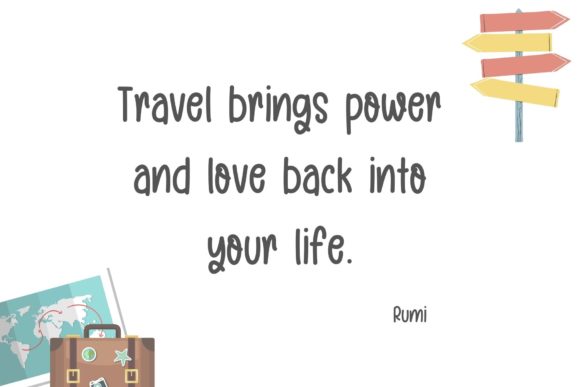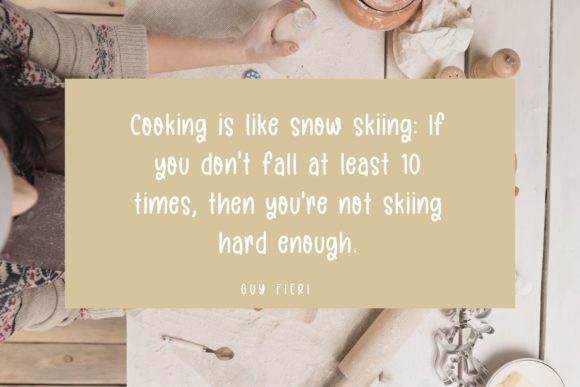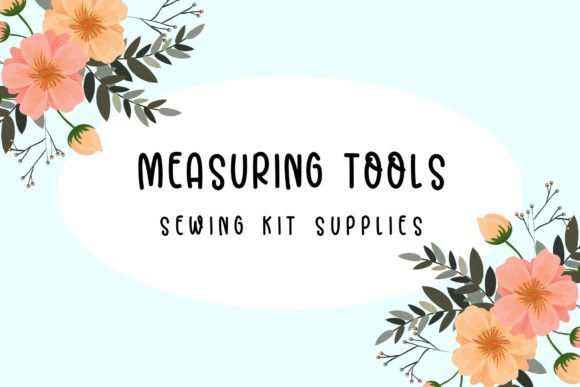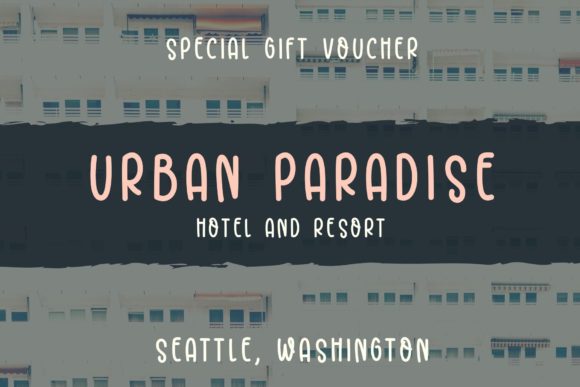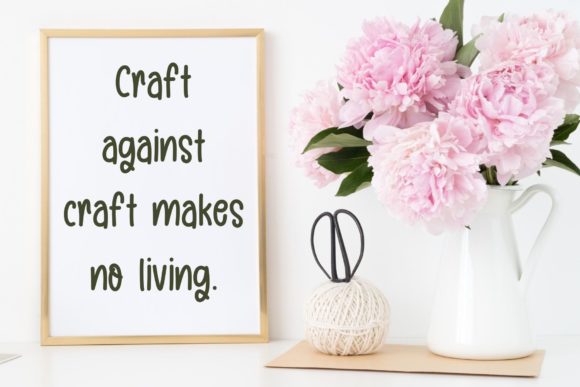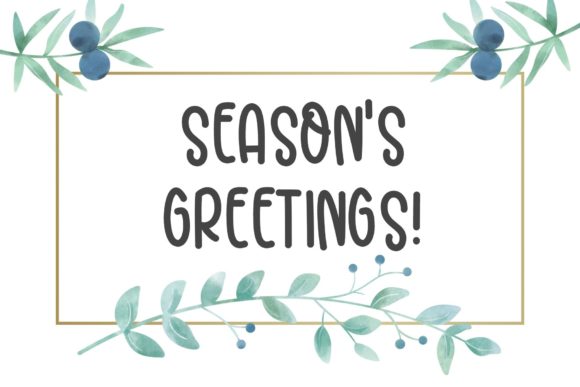
Introducing Amore Boutique Font: The Sweet and Cheerful Handwritten Font to Capture Your Heart
Are you a designer, crafter, or DIY enthusiast looking for a font that can add a touch of sweetness and cheerfulness to your projects? Look no further than Amore Boutique Font! This beautiful handwritten font is designed to capture your heart with its incredibly versatile style, making it perfect for a wide range of design applications.
The Charm of Amore Boutique Font
Amore Boutique Font is a sweet and cheerful handwritten font that exudes a sense of warmth and friendliness. Its unique and elegant style is perfect for creating designs that are both modern and timeless. Whether you’re working on a branding project, crafting a handmade product, or creating digital content, Amore Boutique Font is sure to make your designs stand out.
Key Features of Amore Boutique Font
- Incredibly Versatile: Amore Boutique Font is designed to be versatile, making it suitable for a wide range of design applications, from logos and branding to crafts and digital products.
- Sweet and Cheerful: This font is perfect for creating designs that are sweet, cheerful, and playful, making it ideal for projects that require a touch of whimsy.
- Handwritten Style: Amore Boutique Font features a beautiful handwritten style that adds a personal touch to your designs.
- Elegant and Modern: This font is both elegant and modern, making it perfect for creating designs that are both sophisticated and trendy.
Uses for Amore Boutique Font
Amore Boutique Font is perfect for a wide range of design applications, including:
- Branding and Logos: Use Amore Boutique Font to create a unique and memorable brand identity that stands out from the crowd.
- Crafts and DIY Projects: Add a personal touch to your handmade products, such as cards, invitations, and gift tags.
- Digital Products: Use Amore Boutique Font to create eye-catching digital products, such as printable art, planners, and social media graphics.
- Packaging and Labels: Add a touch of elegance and sophistication to your product packaging and labels.
Tips for Using Amore Boutique Font
Here are some tips for getting the most out of Amore Boutique Font:
- Experiment with Colors: Amore Boutique Font looks great in a variety of colors, so don’t be afraid to experiment and find the perfect color scheme for your design.
- Mix and Match: Combine Amore Boutique Font with other fonts to create a unique and interesting design.
- Pay Attention to Spacing: Make sure to adjust the spacing between letters and words to create a clean and easy-to-read design.
Amore Boutique Font is a sweet and cheerful handwritten font that is sure to capture your heart. With its incredibly versatile style, it’s perfect for a wide range of design applications, from branding and logos to crafts and digital products. Whether you’re a designer, crafter, or DIY enthusiast, Amore Boutique Font is a great addition to your font collection.